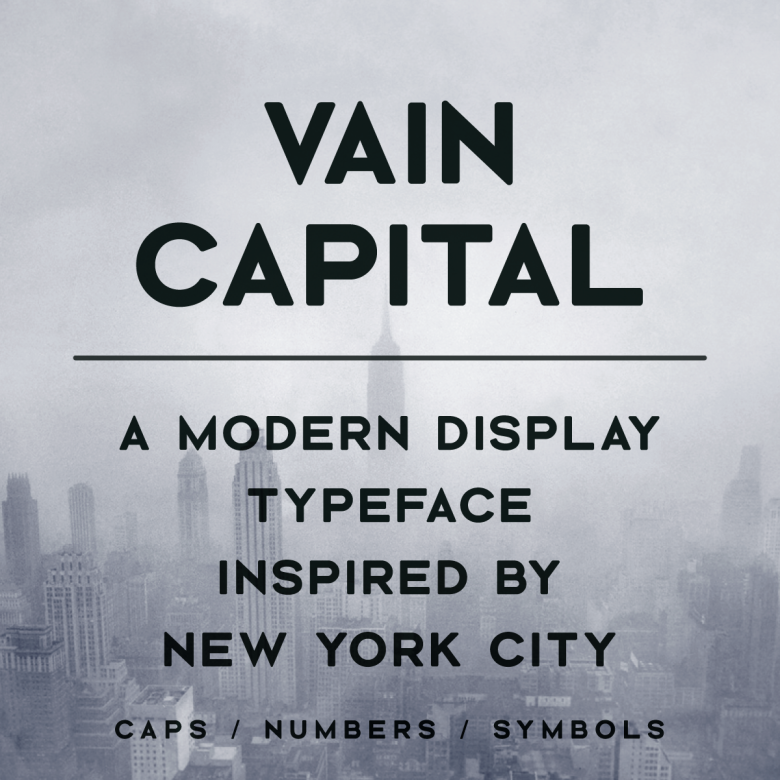
Vain Capital Typeface
This is a modern display typeface. Introducing Vain Capital! Vain Capital is the first type offering from TVP STUD!O. It is inspired by foggy New York mornings and Gotham’s storied past. Perfect for bold headlines and dedicated signage.